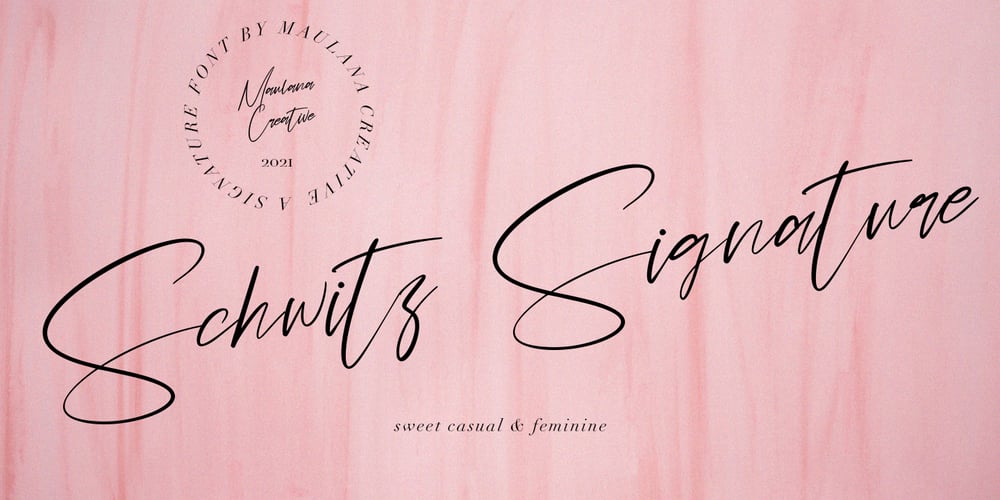
Schwitz Signature Font Family was designed by Gilang Maulana and published by Maulana Creative. Schwitz Signature contains 1 styles and family package options. Schwitz Signature Sweet Casual Script FontGive your designs an authentic handcrafted feel. Schwitz Signature Sweet Casual Script Font is perfectly suited to logo, stationery, branding, typography quotes, magazine or book cover, website header, clothing, branding, packaging design, restaurant and more.